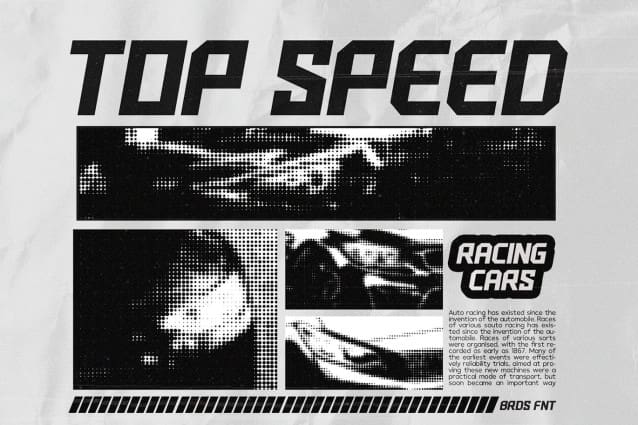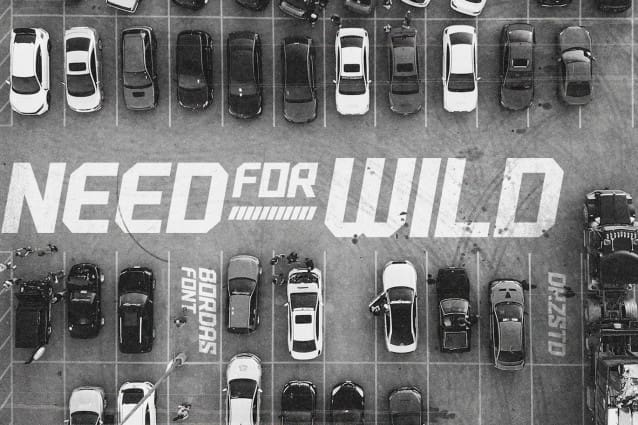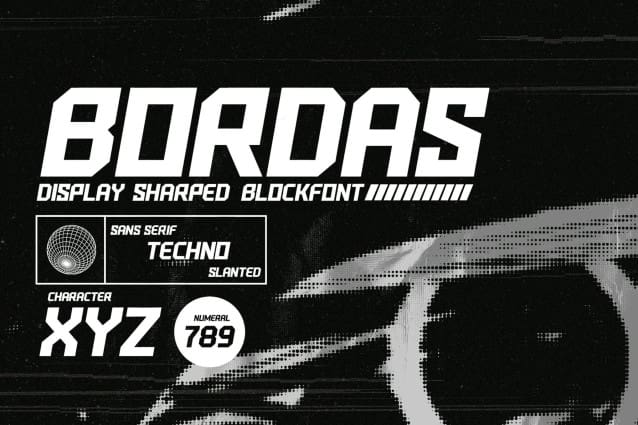
Bordas Display Font
Bordas Display Font is Display Sharped Block Font from Drizy studio. Offering all the basic styles you will need for an industrial and techno theme of your project.